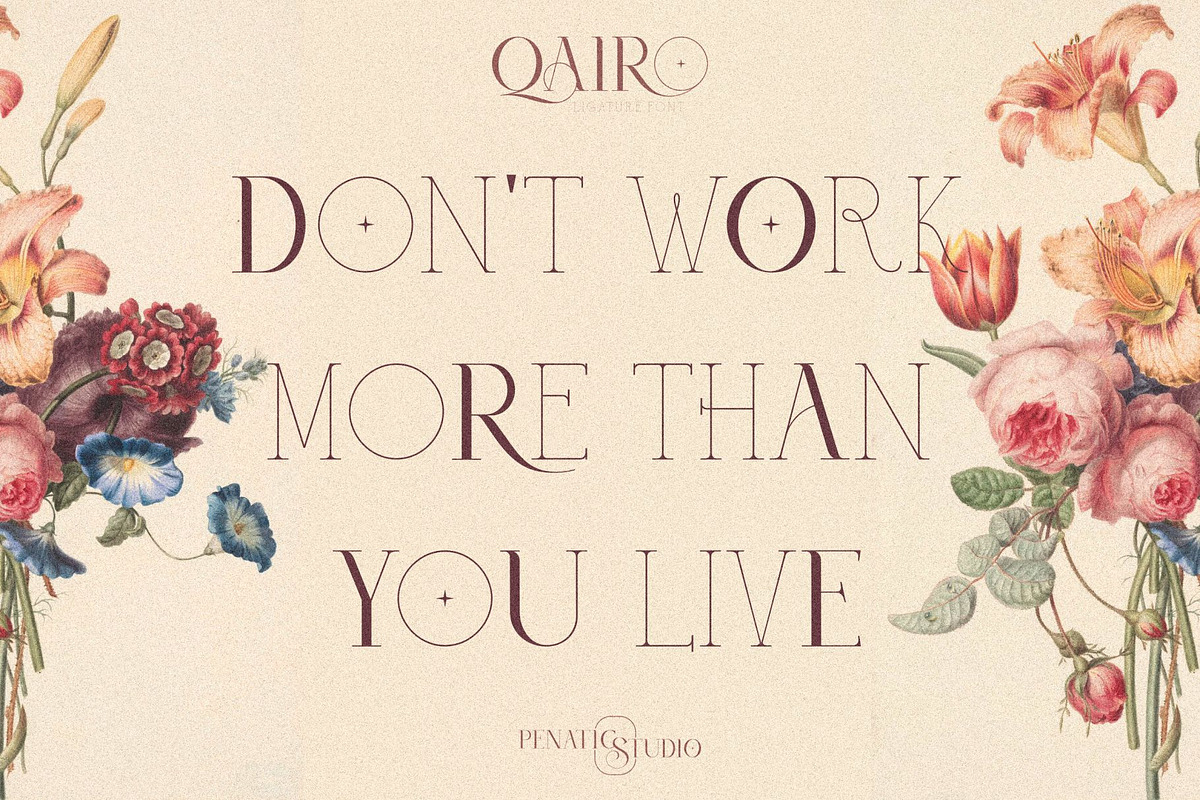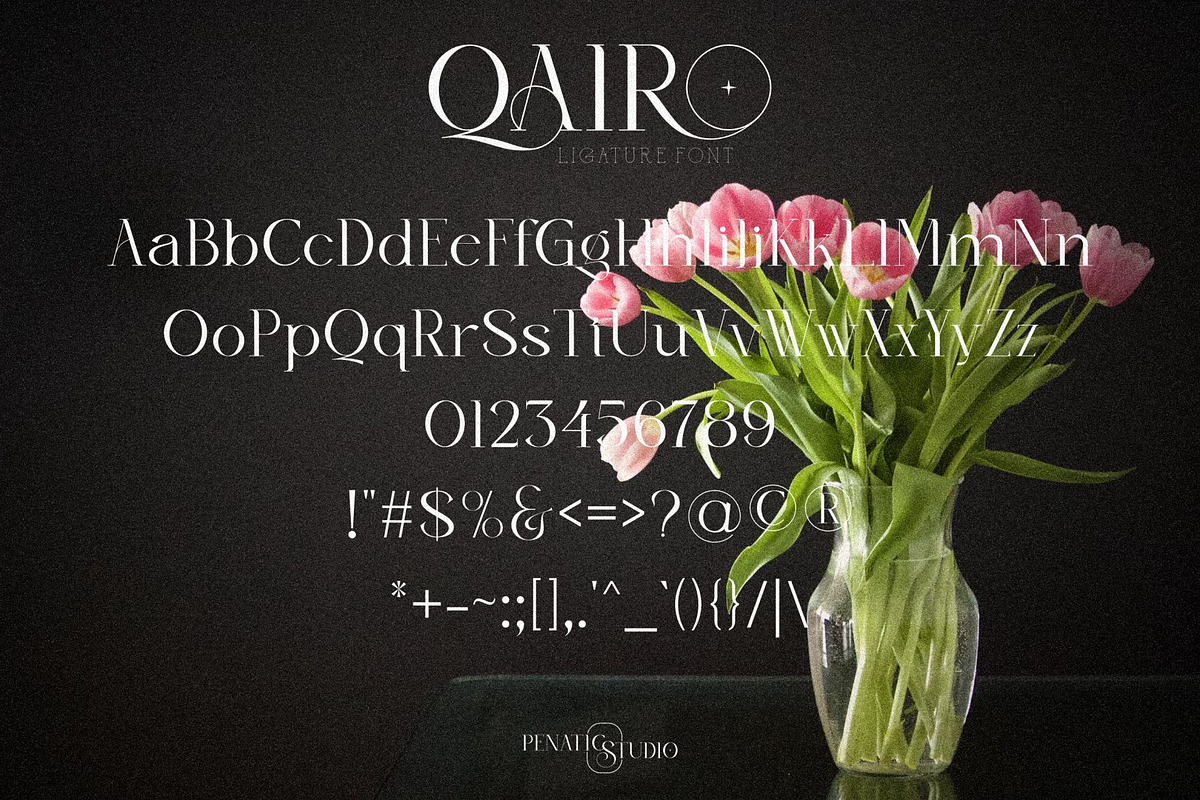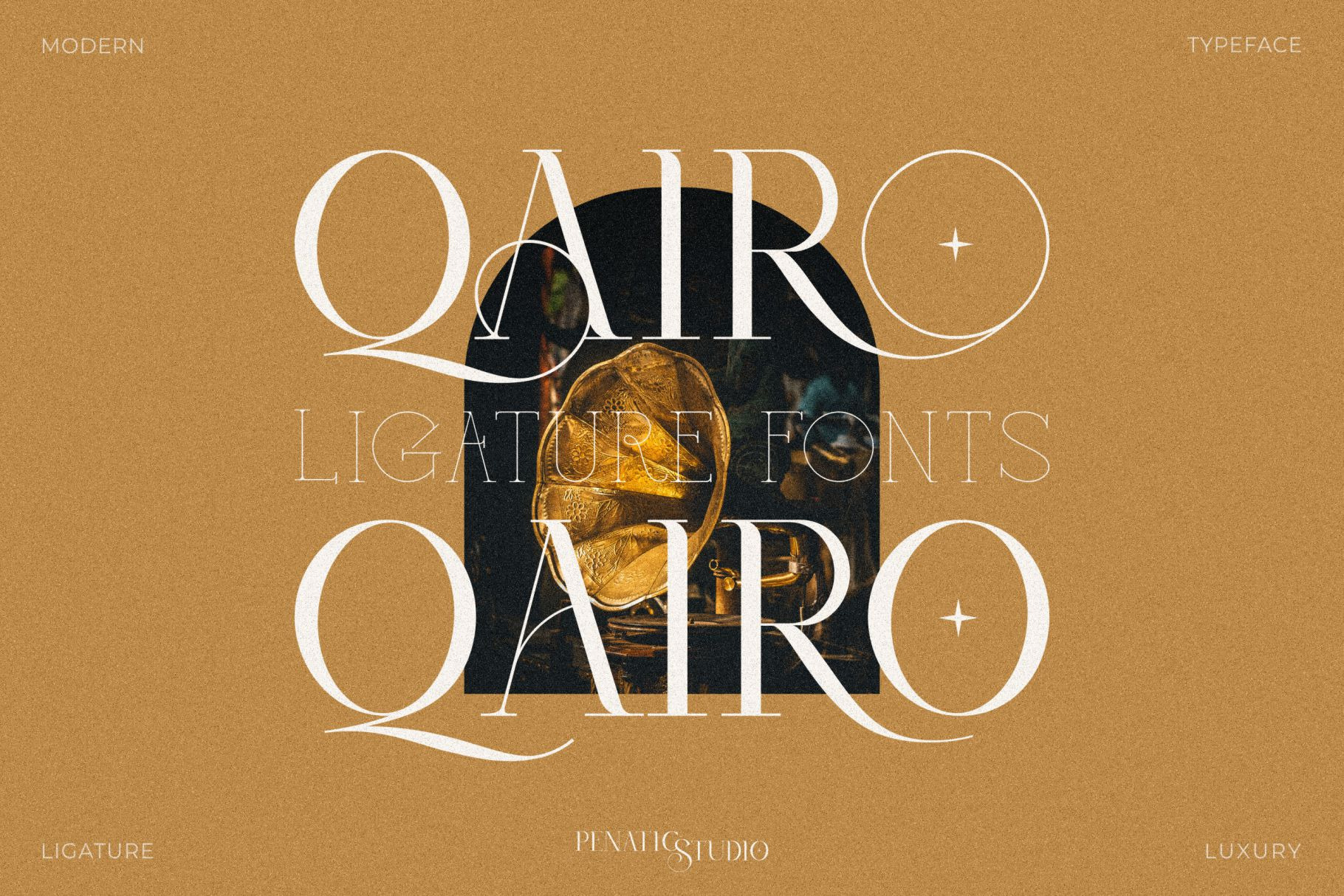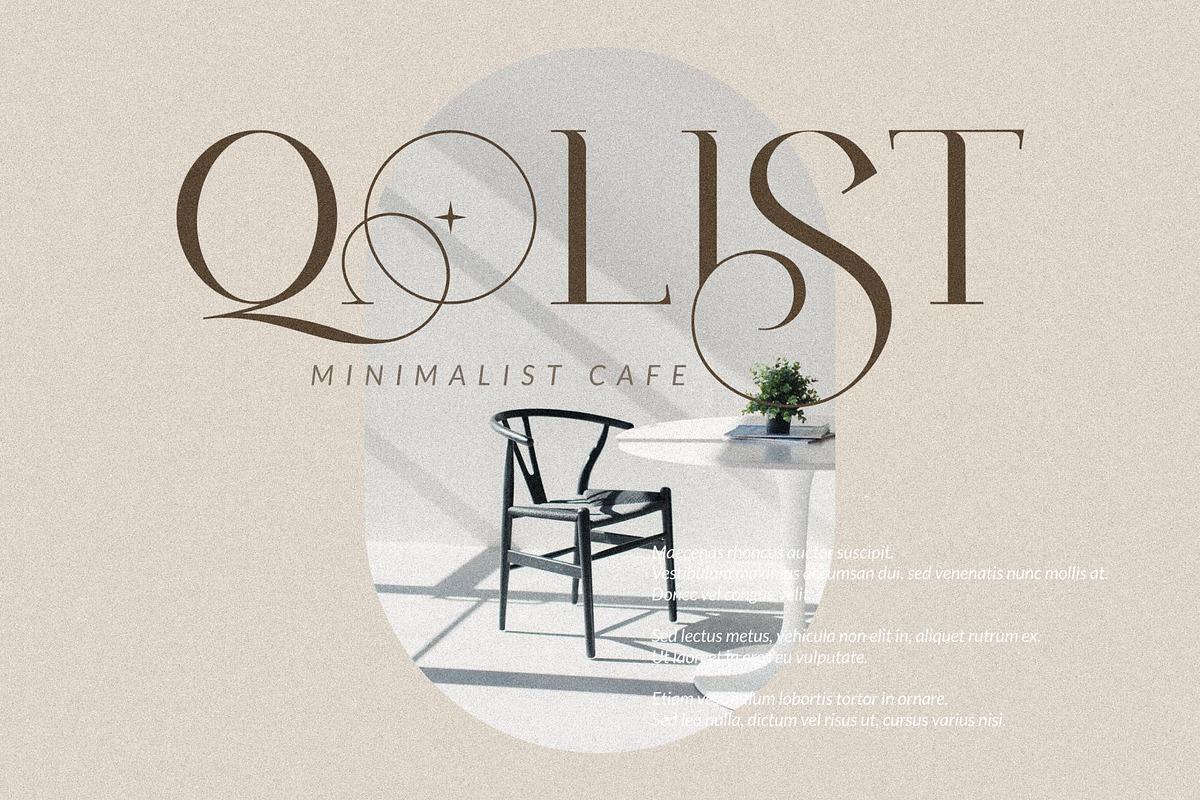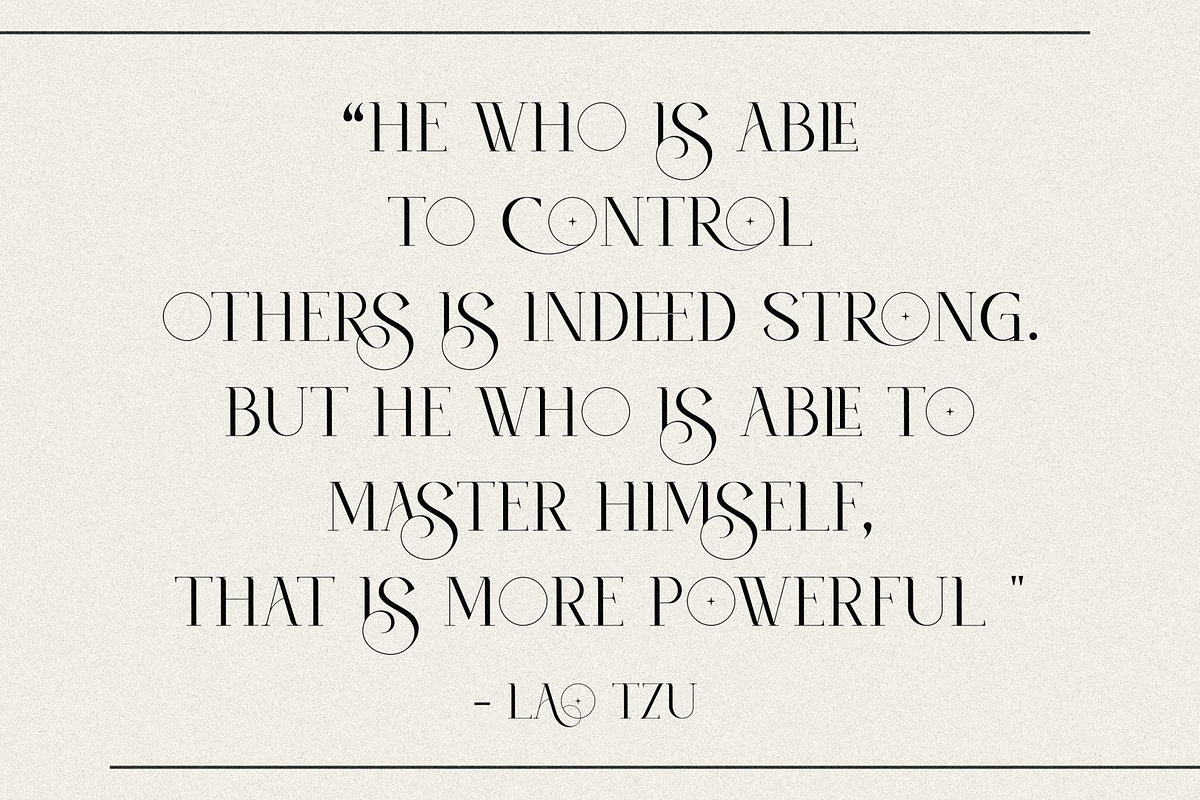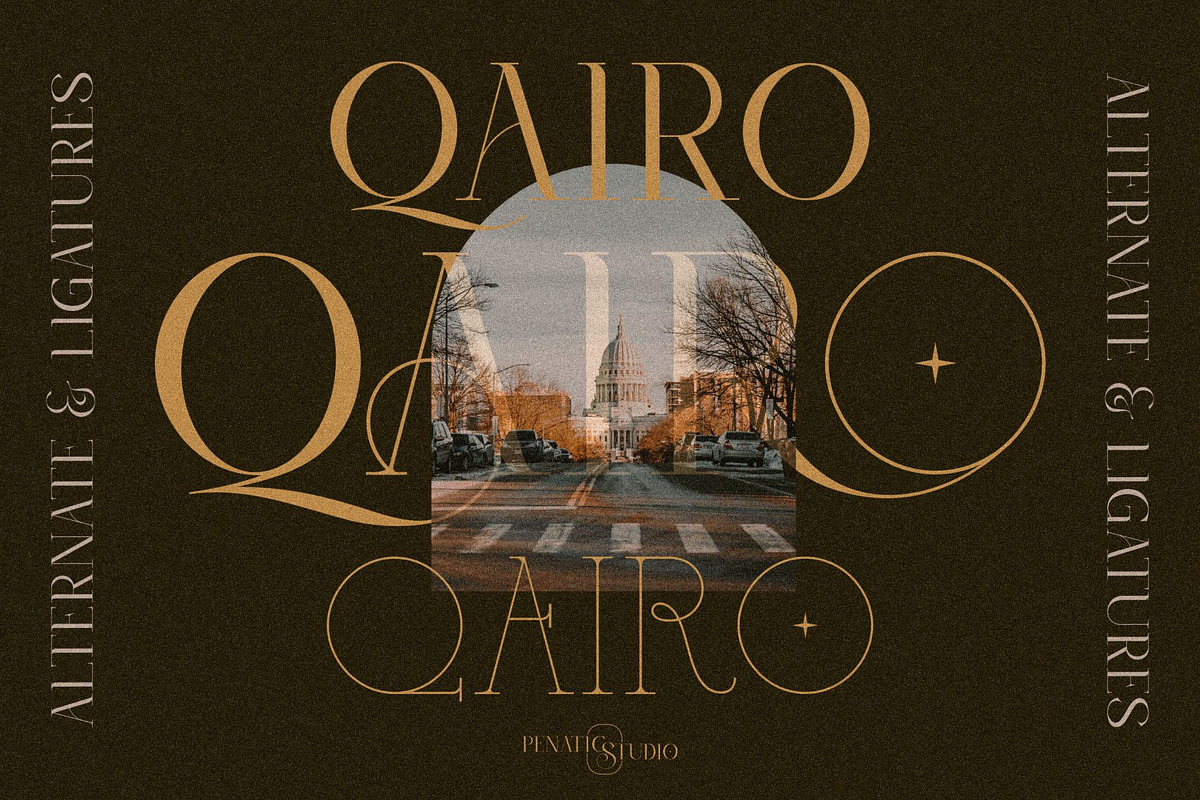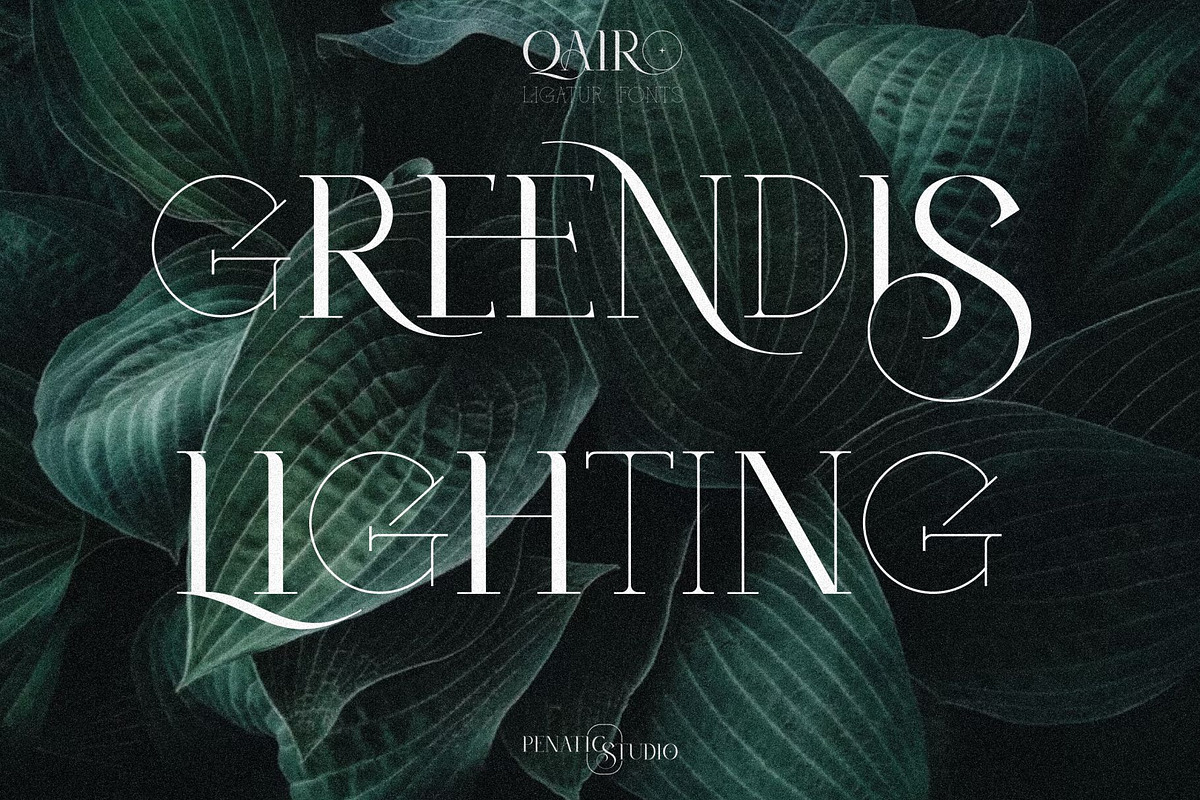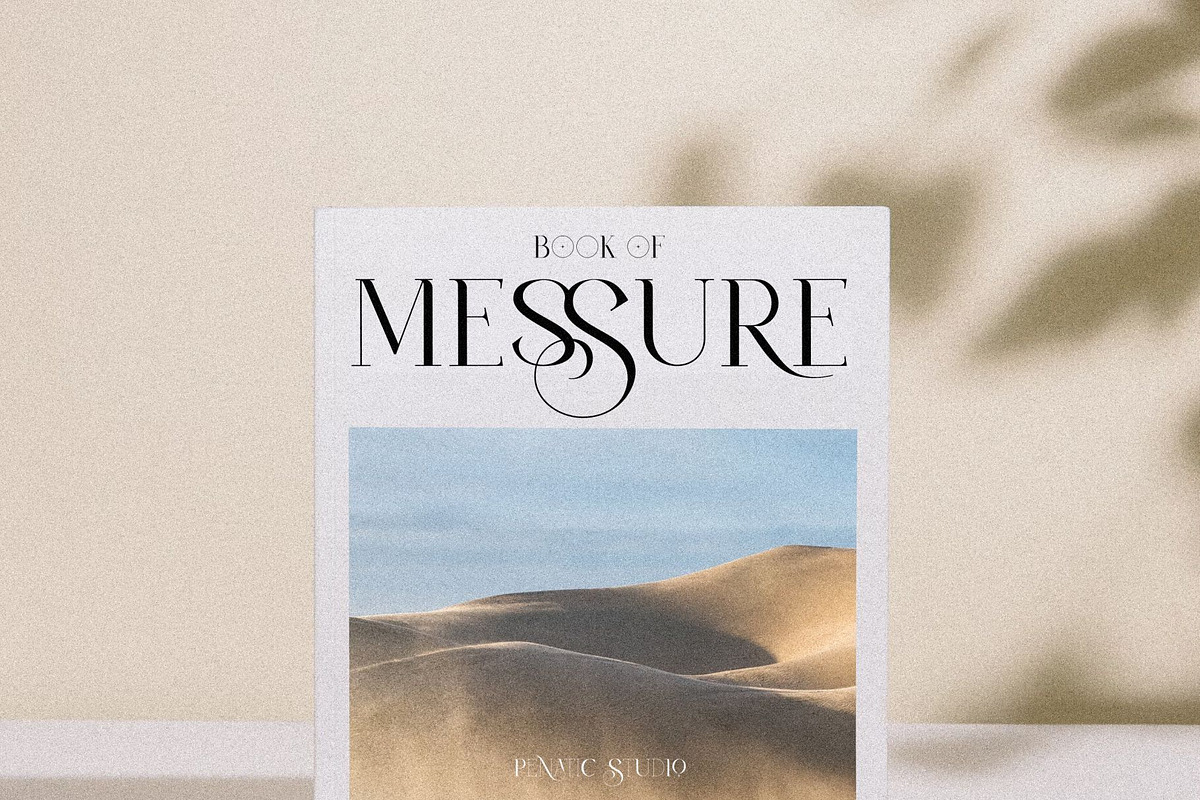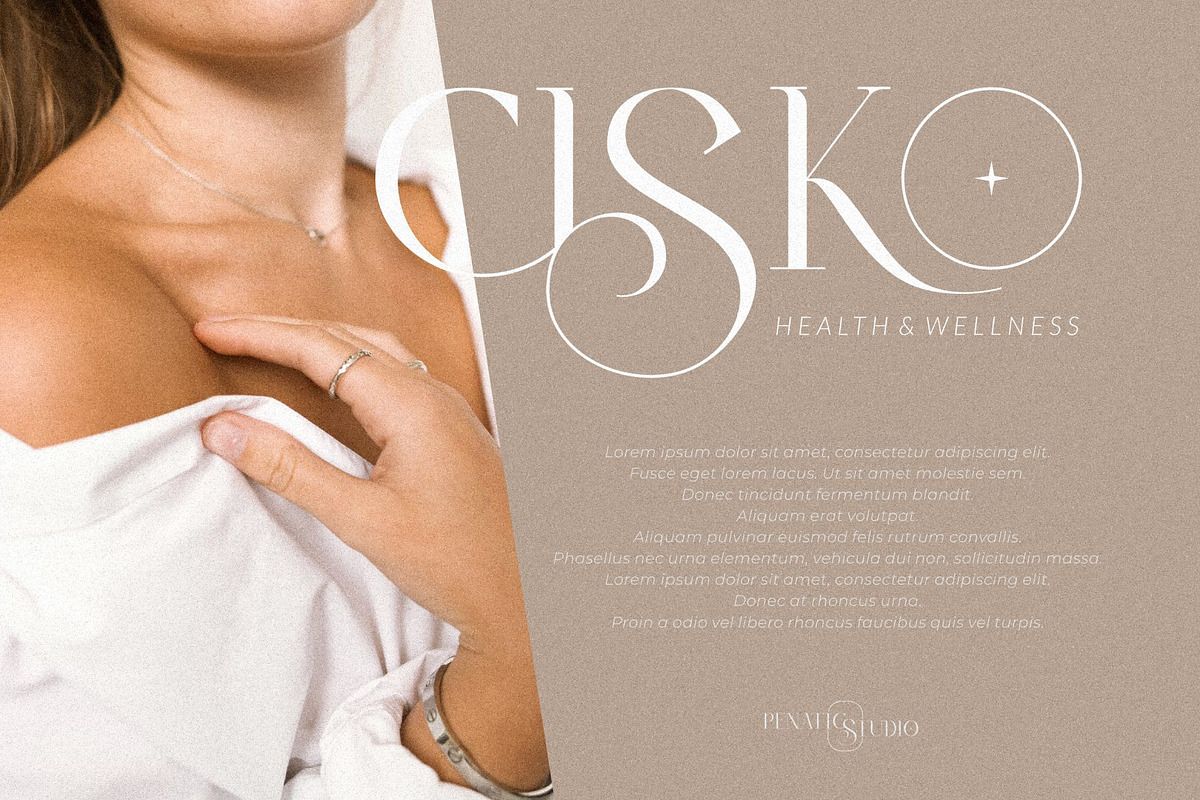
QAIRO _ Ligature fonts
Introducing ''Qairo Ligature Font'' a very classy modern serif font that uses multiple ligatures and font substitutions.
So users can choose to make variations or designs on the letters easily. very suitable for use in various applications including brand identity, invitations, magazines, logo designs and others.
Alternatives and ligatures
Unique letter shapes Multilingual